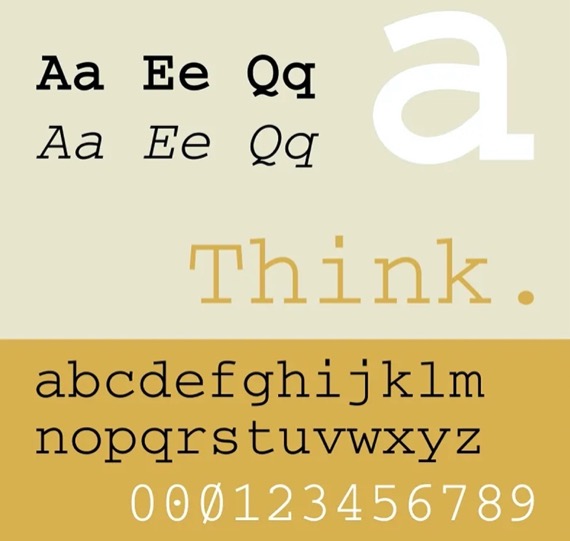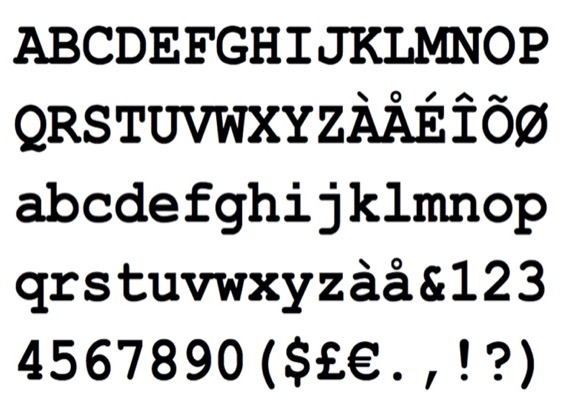
Courier New Font
A little information about Courier New Font. Courier New is a monospaced serif font that was designed by Howard “Bud” Kettler and released by IBM in 1956. It was originally created for use on typewriters and has since become a popular choice for computer programming and other applications where a monospaced font is preferred.
This our familiar typeface is characterized by its fixed-width design, where each character occupies the same amount of horizontal space. This feature makes it useful for aligning text vertically and creating tables or code blocks. The font has a distinctive appearance, with uniform stroke widths and serifs on the ends of characters.
Courier New is a practical and widely used monospaced serif font known for its readability, particularly in technical and programming contexts. On the other hand, Italian Font is a decorative display font with an ornate and artistic design, primarily used for creative purposes where visual aesthetics are emphasized.
Courier New Font is often used in text editors, source code editors, and terminal windows, as it provides clear and easily readable text, especially for monospaced content. It is also commonly seen in printed documents, such as manuscripts, screenplays, and legal contracts, where maintaining consistent spacing is important.
In addition to its standard version, Courier New is available in bold, italic, and bold italic variants. It is widely supported across different operating systems and is included as a default font in many text editors and word-processing applications.